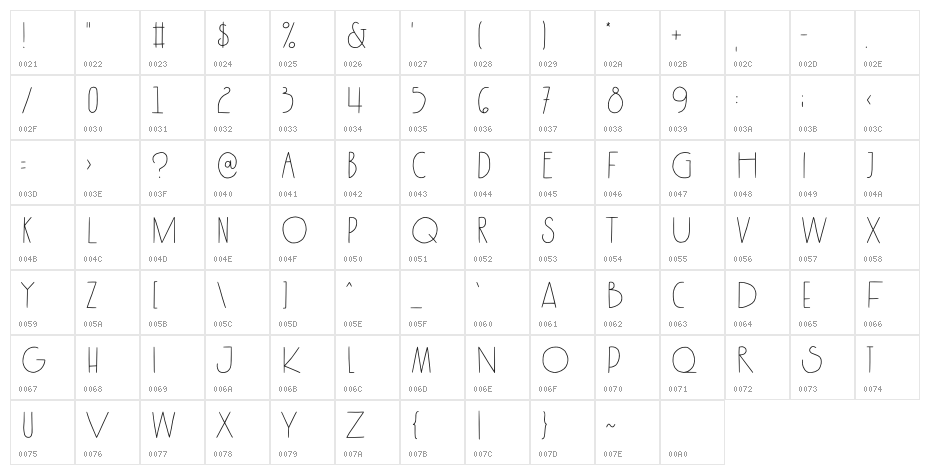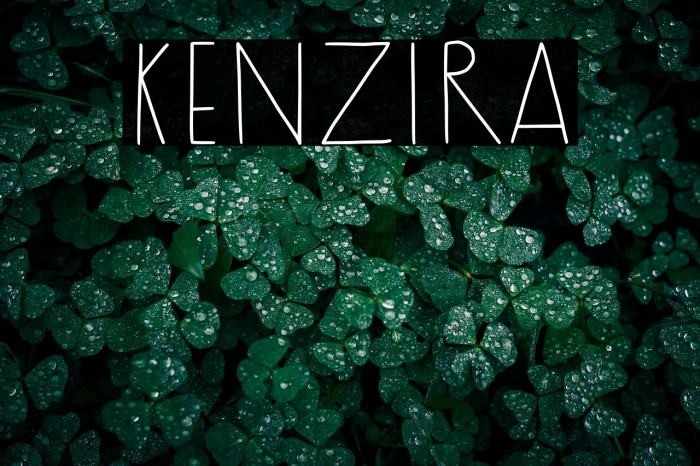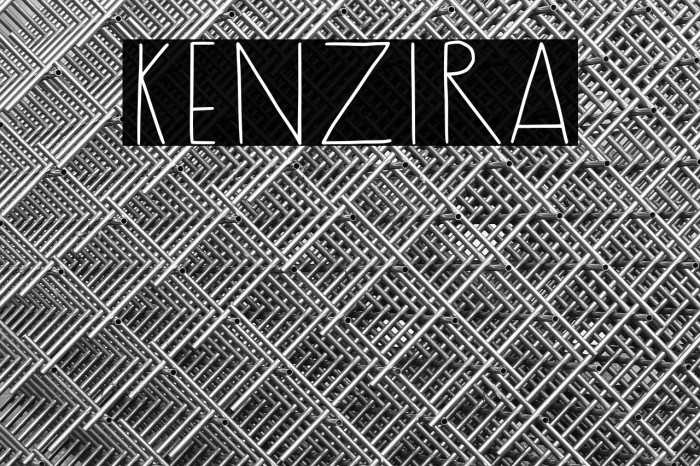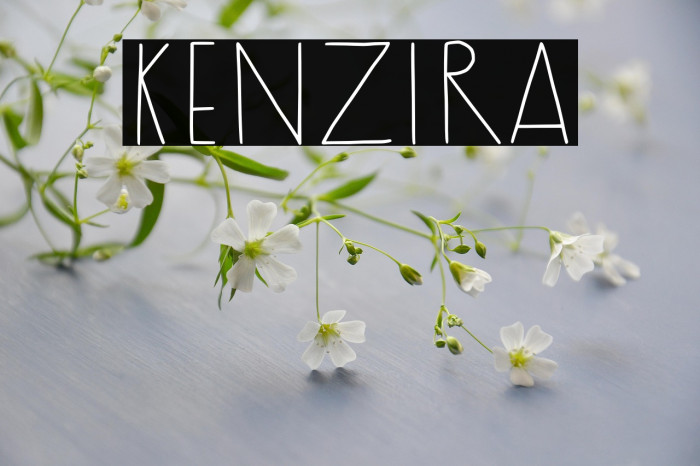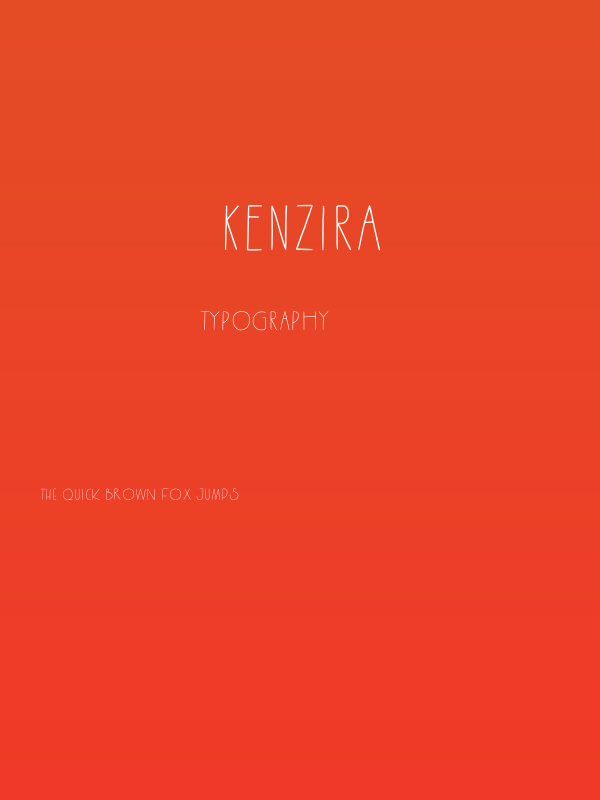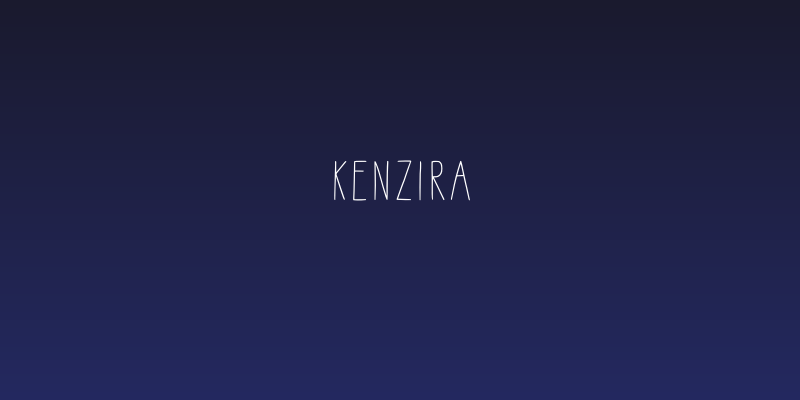
Kenzira Font
Kenzira Description
This font features a playful and whimsical design, characterized by its tall, narrow letters with a hand-drawn feel. The strokes are thin and consistent, giving it a light and airy appearance. The uppercase and lowercase letters maintain a uniform height, contributing to a cohesive look. The numerals and special characters follow the same style, ensuring a harmonious overall appearance. The font's simplicity and charm make it suitable for a variety of creative projects, where a touch of personality is desired. Its clean lines and minimalistic design allow it to be versatile while retaining a unique character.
| Overall Style | Whimsical |
| Proposed Projects | Ideal for children's books, greeting cards, playful branding, and creative posters. |